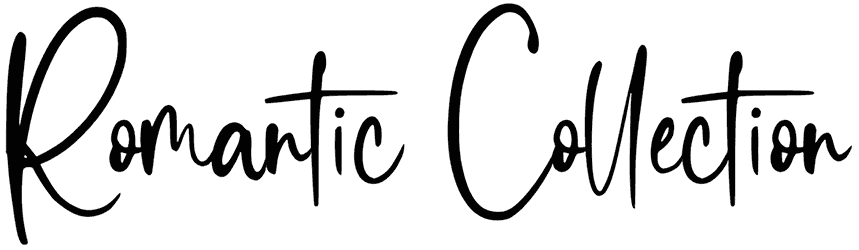
Romantic Collection Font
Let’s illustrate an appealing and modern design with a classic face like the Romantic Collection. This handwritten font consists of casual and delicate letters that can be harmonized with many formal or informal projects. Set this calligraphy font for your coming design from business cards to social media posts, and overjoy the results.